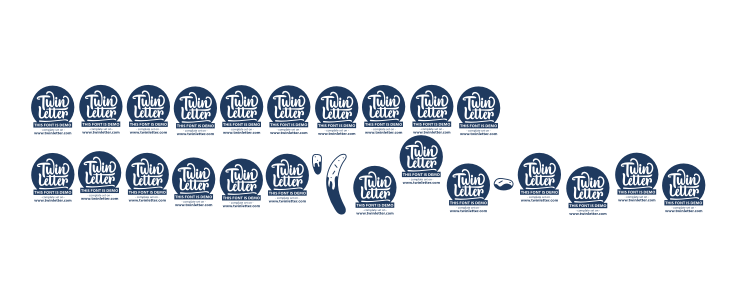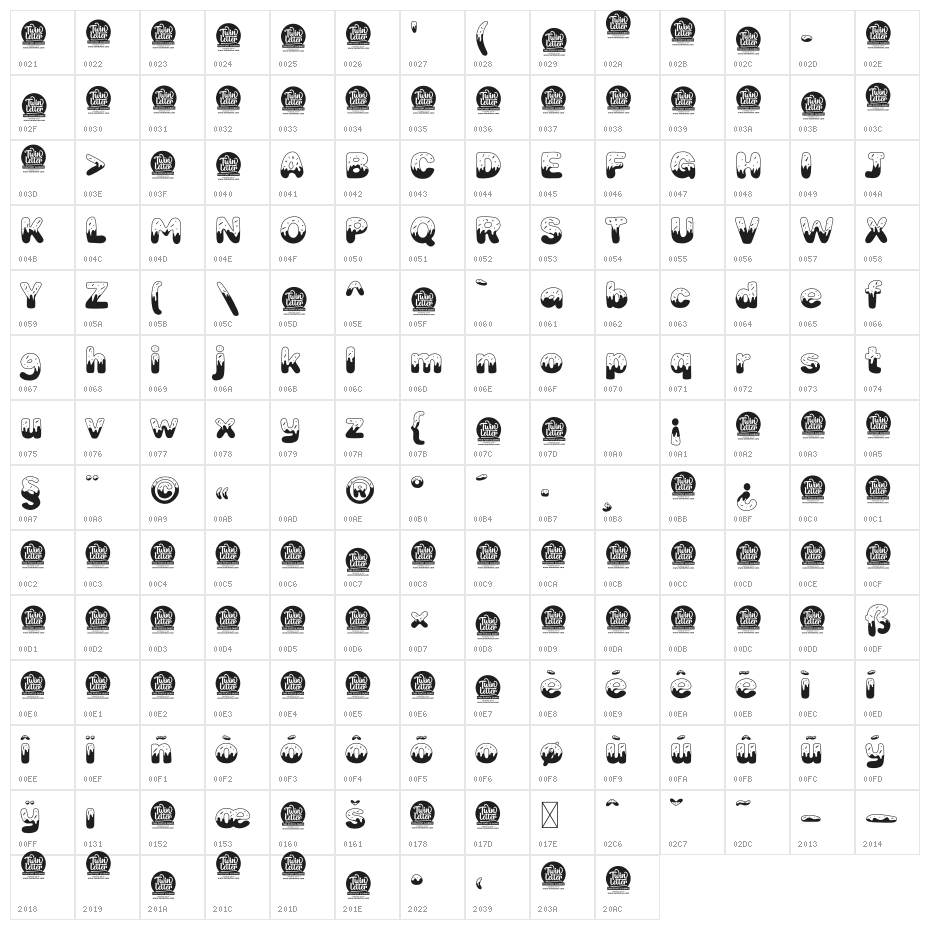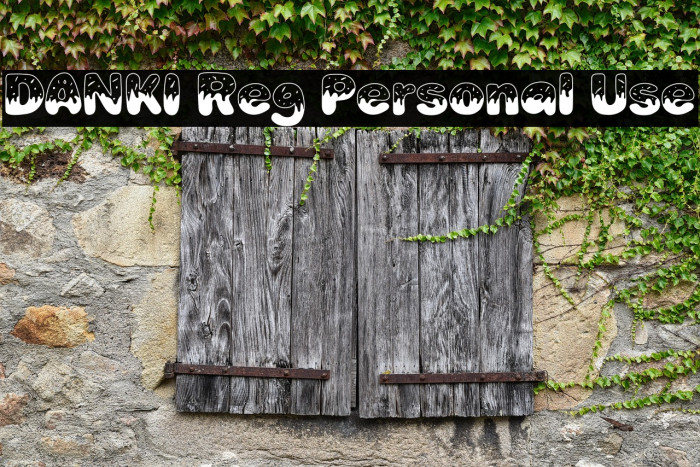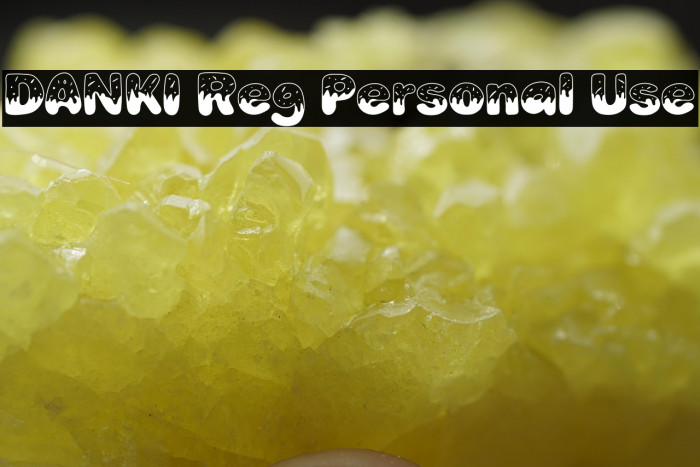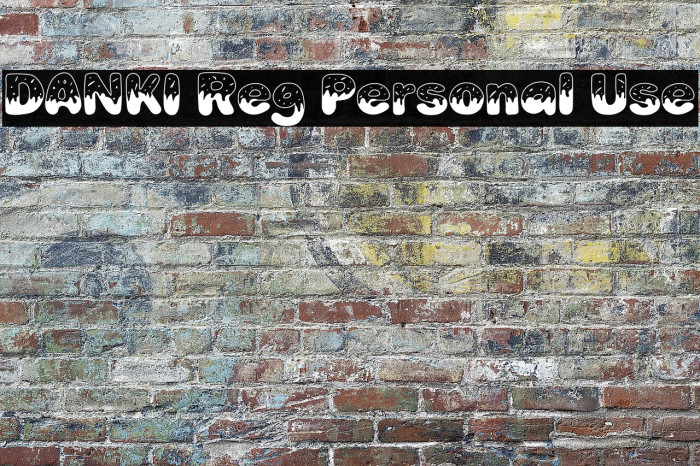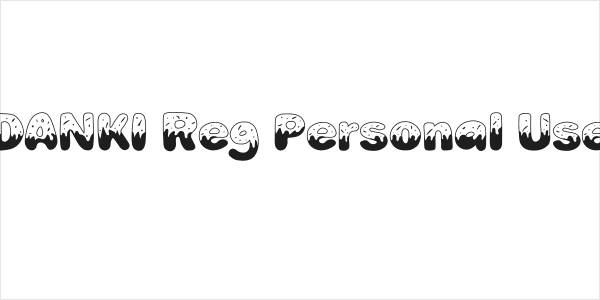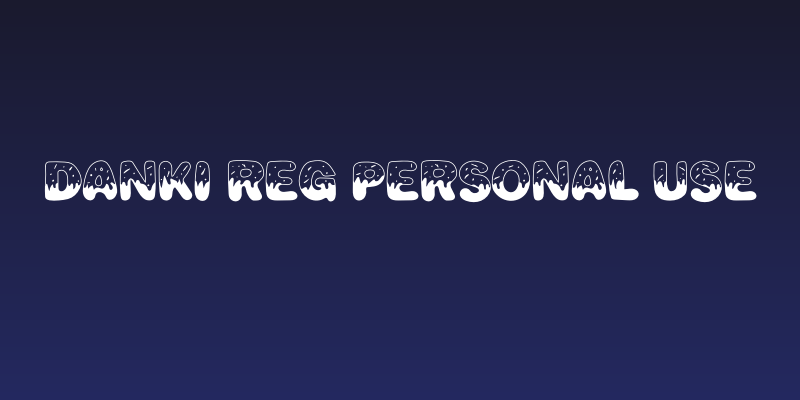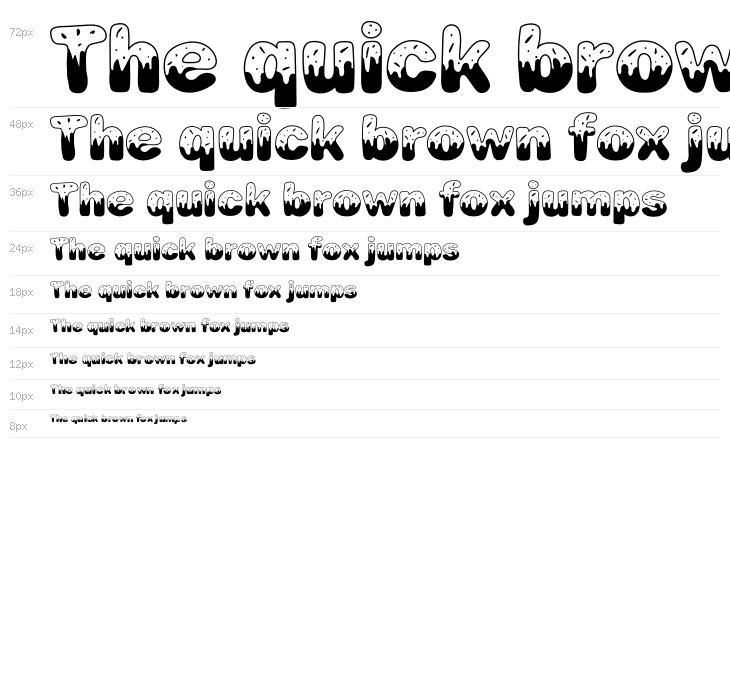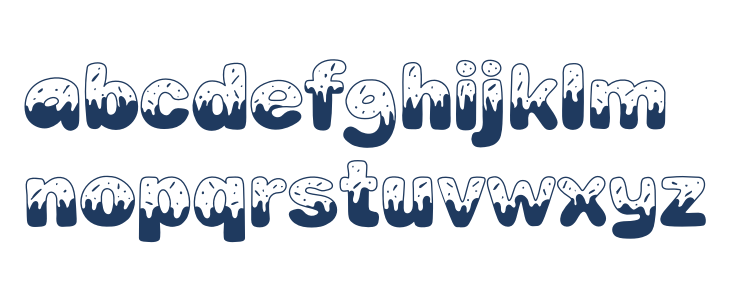
DANKI Reg Personal Use Font
DANKI Reg Personal Use Description
This playful and bold font features a unique dripping effect on each character, giving it a fun and dynamic appearance. The letters are rounded and thick, with a consistent and smooth flow that enhances its decorative style. The uppercase and lowercase letters maintain a cohesive look, while the numbers and special characters follow the same design theme. The font's whimsical nature makes it ideal for projects that require a touch of creativity and flair.
| Proposed Projects | Ideal for children's book covers, party invitations, playful branding, and eye-catching posters. |